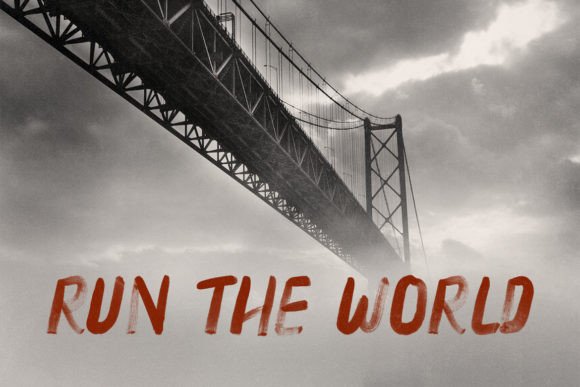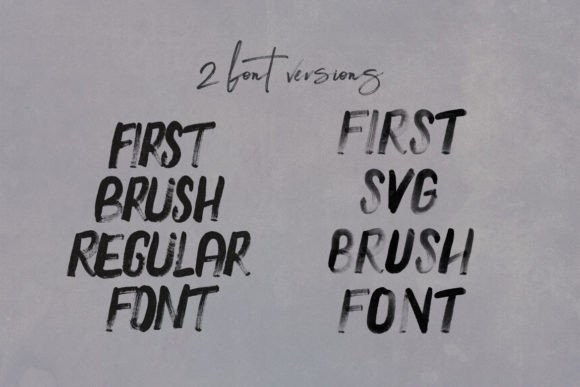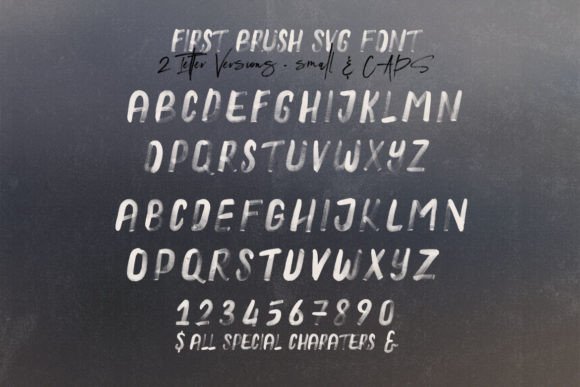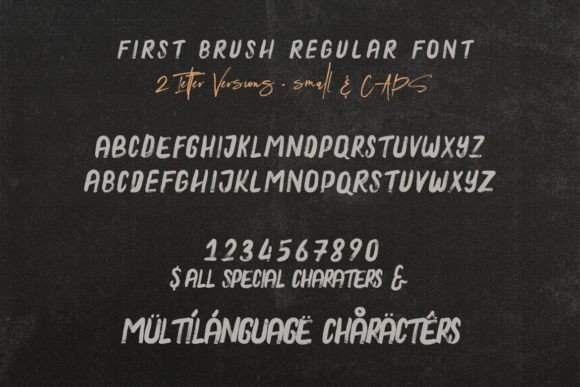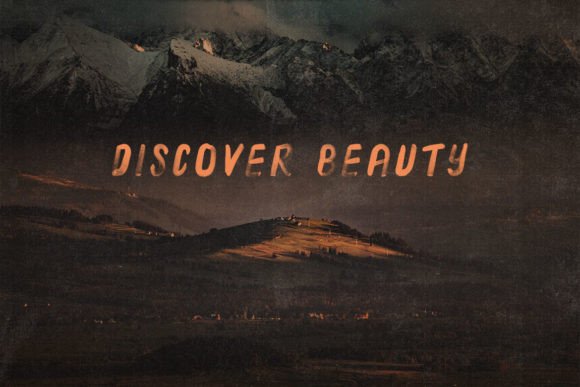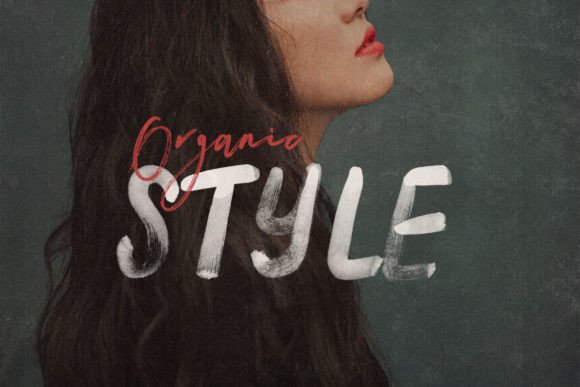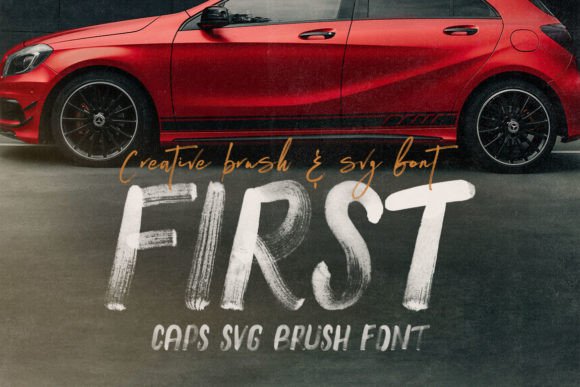
Introducing First Font: The Bold and Artistic Choice for Designers
In the world of typography, fonts play a crucial role in conveying messages, expressing creativity, and capturing attention. Among the numerous fonts available, First Font stands out as a bold and artistic choice, designed to make a statement. This brush font is characterized by its bold strokes and striking artistic flair, making it an ideal choice for designers, crafters, and artists looking to add personality and impact to their projects.
What Makes First Font Unique?
First Font is meticulously crafted to provide a unique and distinctive look to any design project. Each character is carefully designed to showcase bold strokes, artistic flair, and a touch of elegance. The font’s distinctive features include:
• Bold Strokes: The font’s bold strokes give it a confident and assertive look, making it perfect for headlines, titles, and graphic designs that require attention-grabbing typography.
• Artistic Flair: The font’s artistic flair adds a creative touch to any design project, making it ideal for branding, packaging, and editorial design.
• Meticulous Craftsmanship: Each character is meticulously crafted to ensure that the font is not only visually appealing but also highly legible.
First Font is an excellent choice for designers and crafters looking to add a touch of personality and impact to their projects. Whether you’re working on a branding campaign, packaging design, or editorial project, this font is sure to make a statement. Some of the ways designers and crafters can use First Font include:
• Branding: Use First Font to create bold and eye-catching logos, business cards, and letterheads that reflect your brand’s personality.
• Packaging Design: Add a touch of elegance and sophistication to your packaging designs with First Font, perfect for product labels, packaging boxes, and promotional materials.
• Editorial Design: Use First Font to create striking headlines, titles, and captions for magazines, newspapers, and digital publications.
Tips for Using First Font Effectively
To get the most out of First Font, here are some tips for using it effectively:
• Use it sparingly: First Font is a bold and attention-grabbing font, so use it sparingly to avoid overwhelming your design.
• Pair it with complementary fonts: Pair First Font with complementary fonts to create a harmonious and visually appealing design.
• Experiment with colors and textures: Experiment with different colors and textures to add depth and interest to your design.
In conclusion, First Font is a bold and artistic font designed to make a statement. With its bold strokes, striking artistic flair, and meticulous craftsmanship, it’s an ideal choice for designers, crafters, and artists looking to add personality and impact to their projects. Whether you’re working on branding, packaging, or editorial design, First Font is sure to capture attention and leave a lasting impression.
Get Creative with First Font